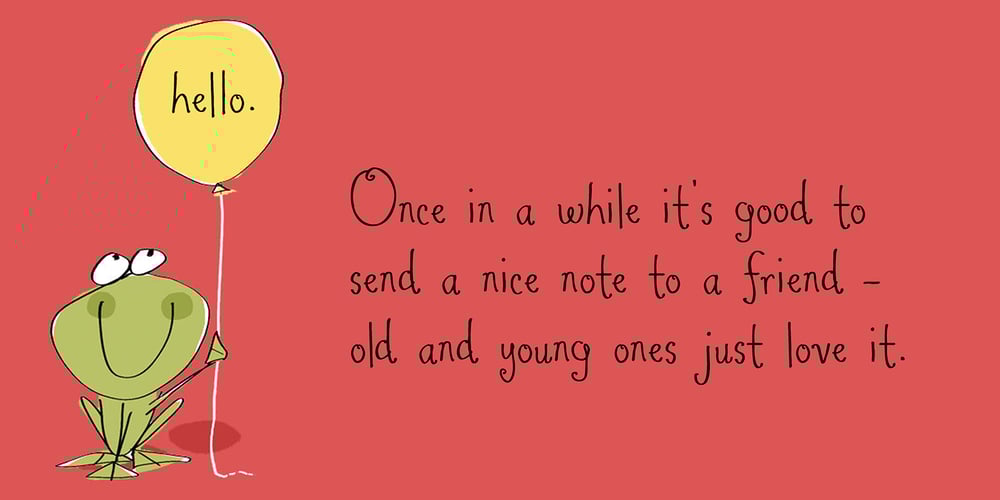
Once Font Family was designed by Amy Dietrich and published by Atlantic Fonts. Once contains 1 styles and family package options. Once upon a time there was a really adorable font. Expressive, hand-lettered, and storybook sweet in any language, Once has charm to spare. Enjoy the new set of double letter ligatures, and live happily ever after.